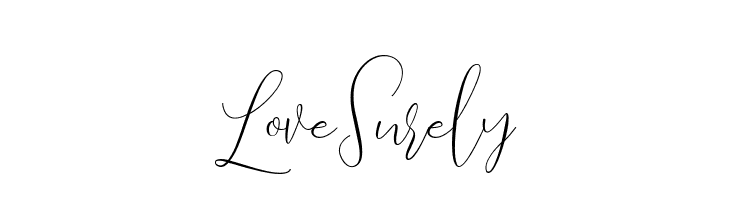
A charming and elegant handwritten script font with fluid, connected letterforms.
A playful and elegant handwritten font with flowing, cursive letterforms.
An elegant and flowing script font with dramatic uppercase and harmonious lowercase letters.
An elegant, flowing script font with dramatic curves and sophisticated style.
A modern, elegant script font with flowing cursive letters and graceful swashes.
A graceful script font with flowing, cursive letters and a sophisticated style.
An elegant, flowing script font with interconnected, graceful strokes.
A graceful, slanted script font with smooth, flowing letterforms.
A delicate, cursive script font with flowing, interconnected strokes and elegant flourishes.